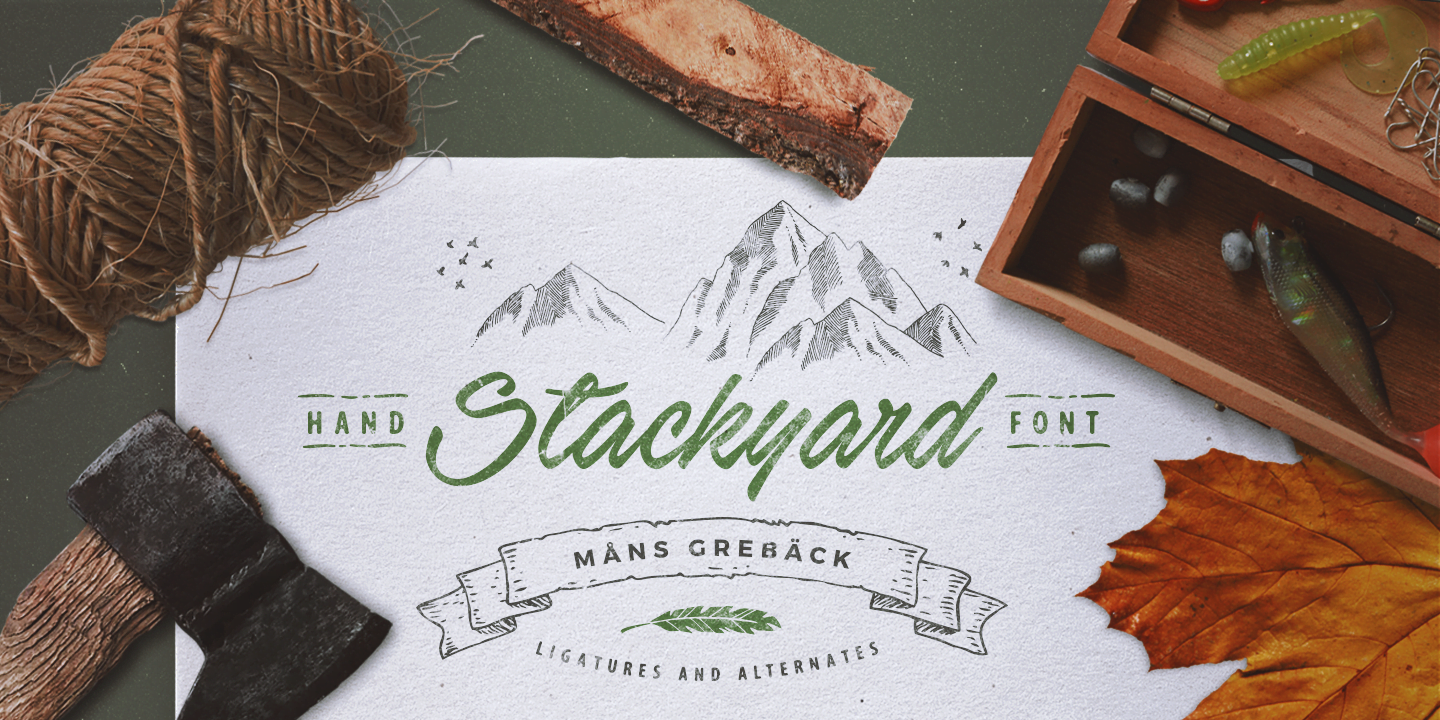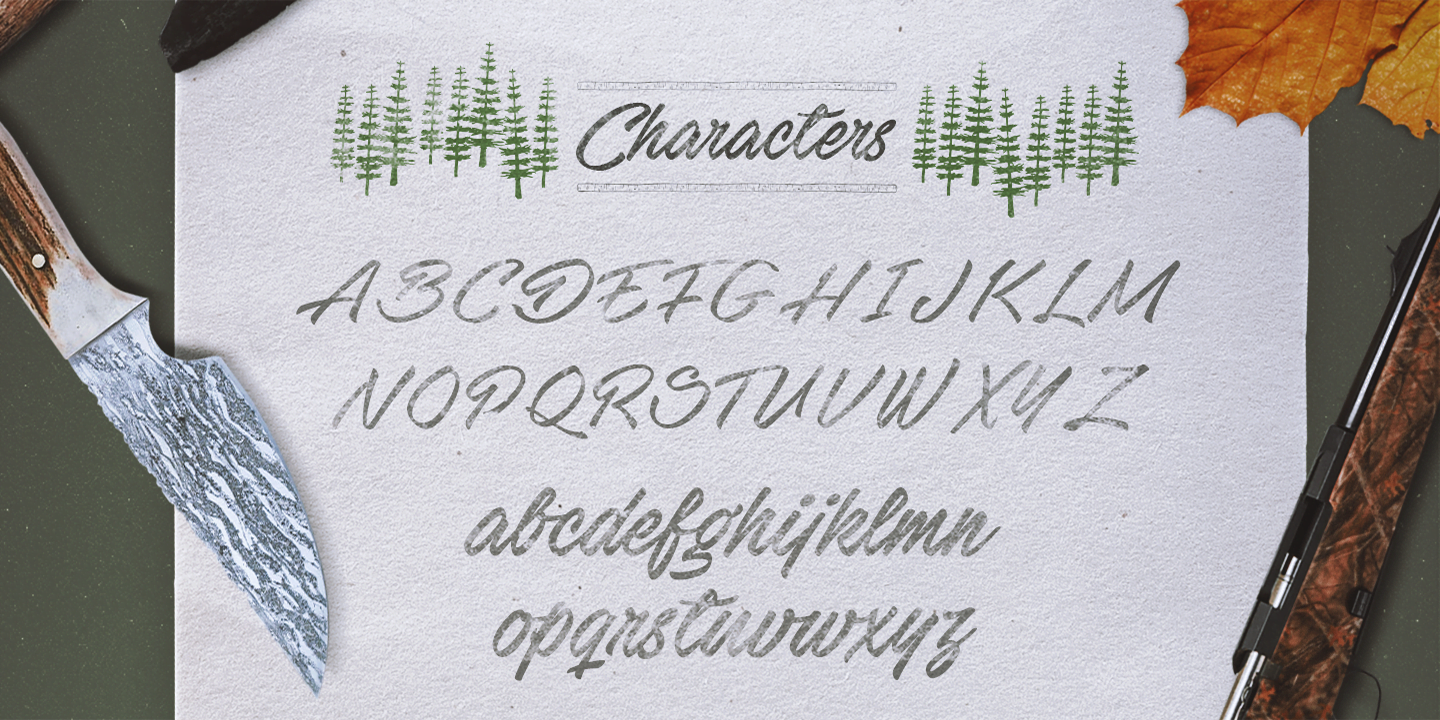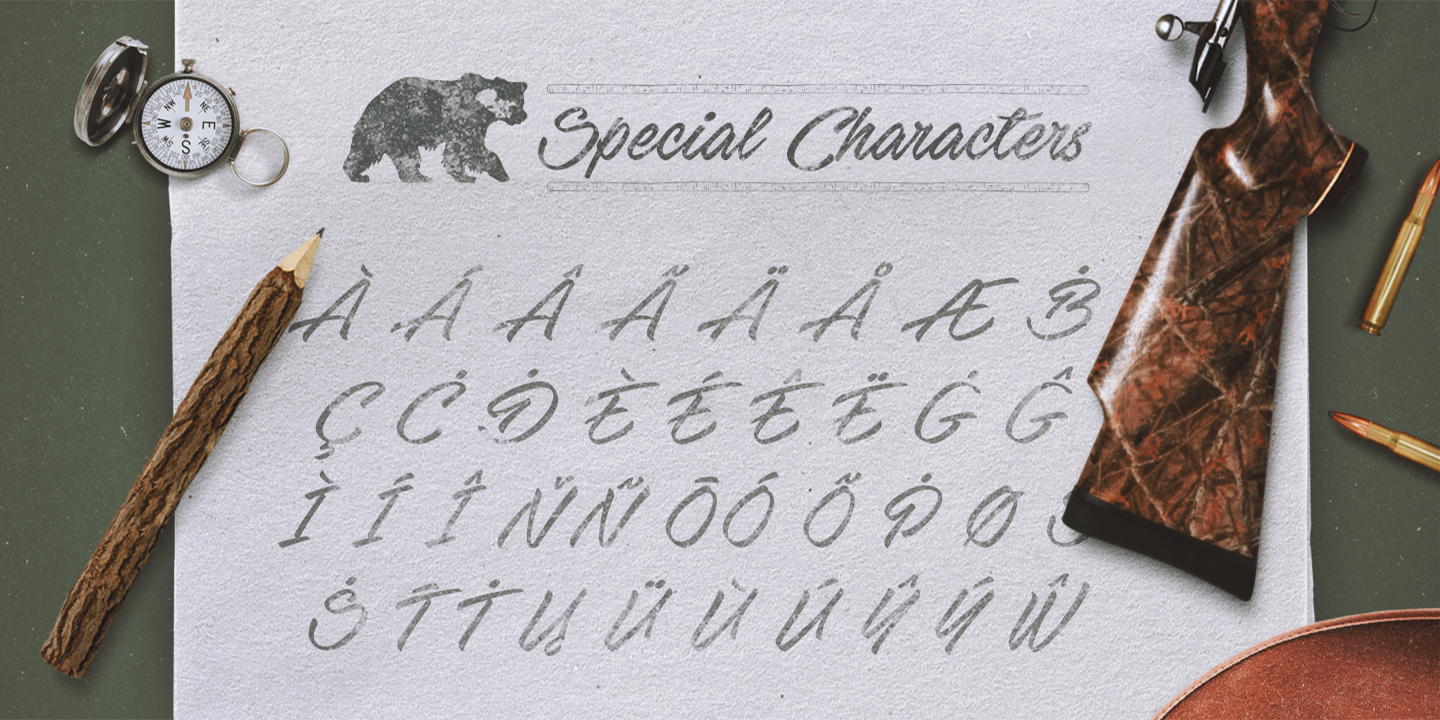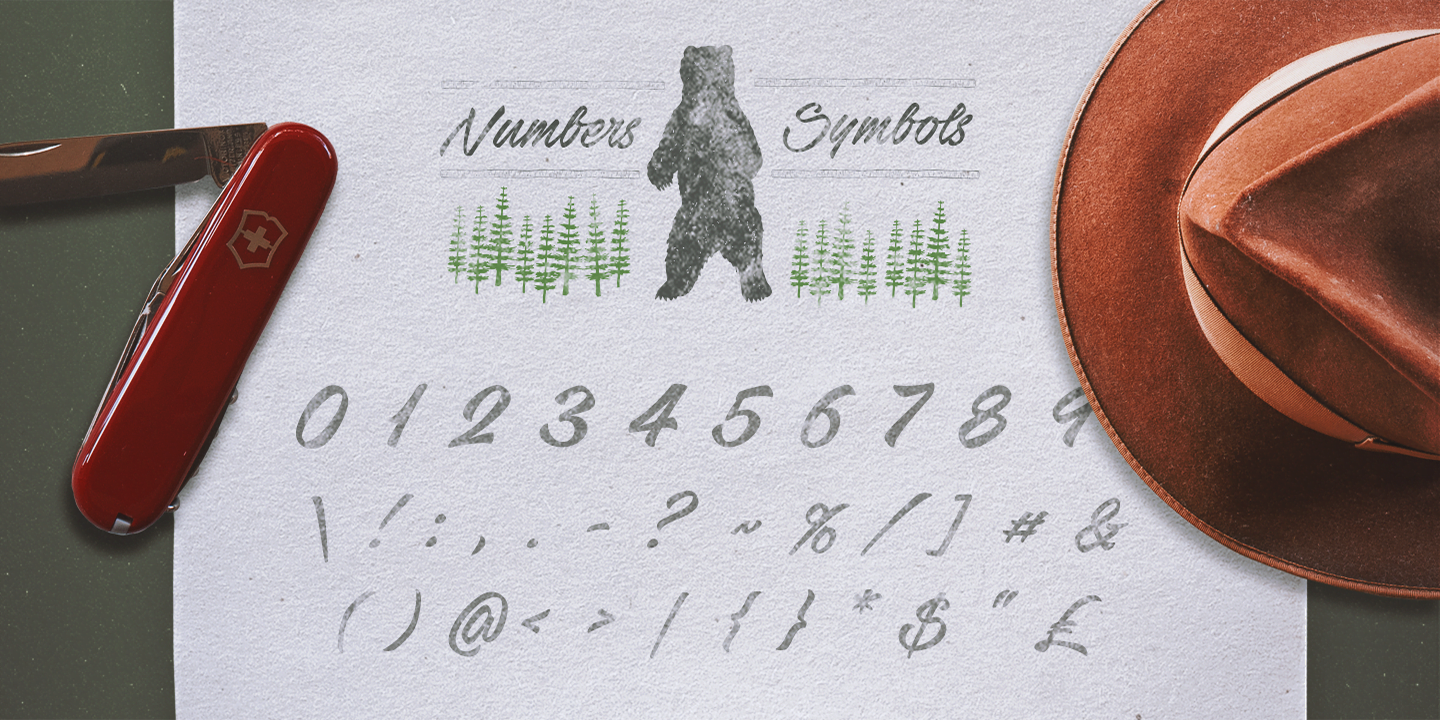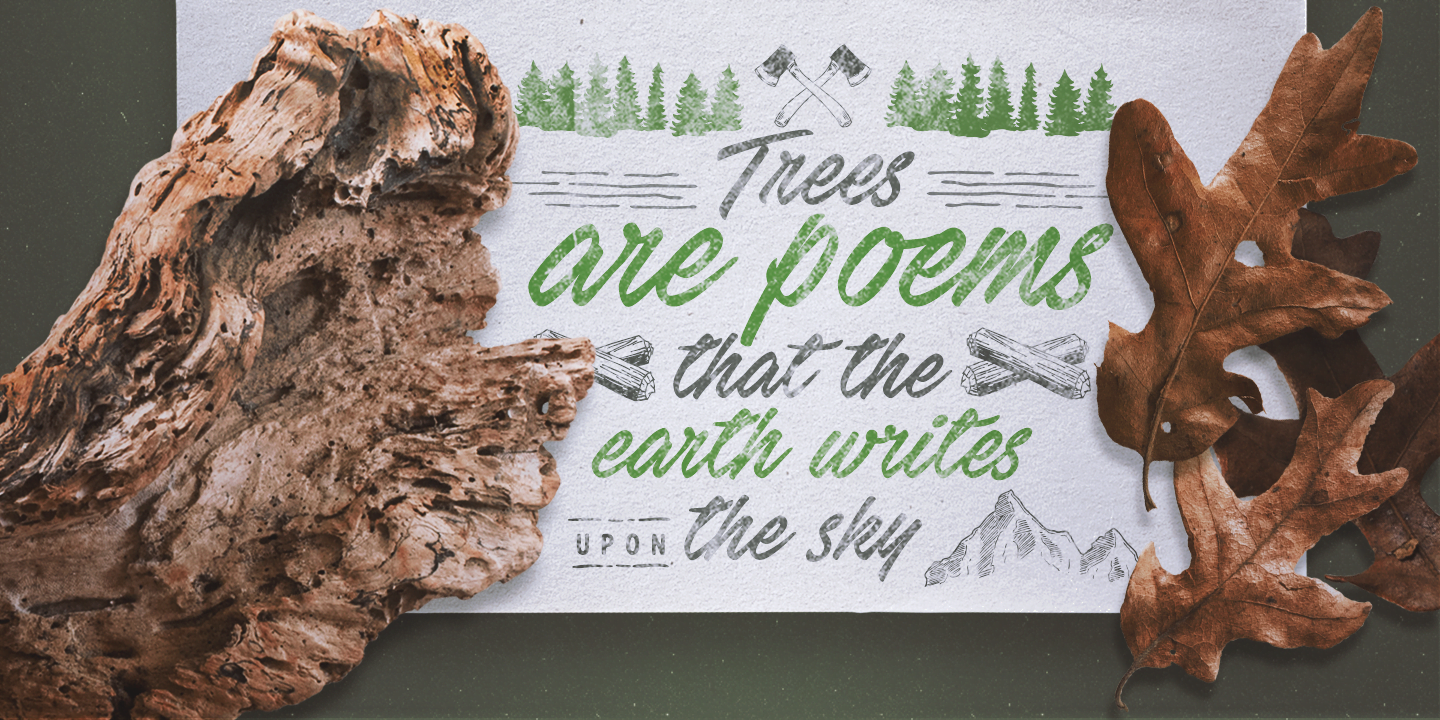
Stackyard
Stackyard is an original, high-quality, handwritten typeface. Brings thoughts to a traditional and classy storefront. The font is filled with stylistic and contextual alternates, which give it both variation and a naturally handwritten look.